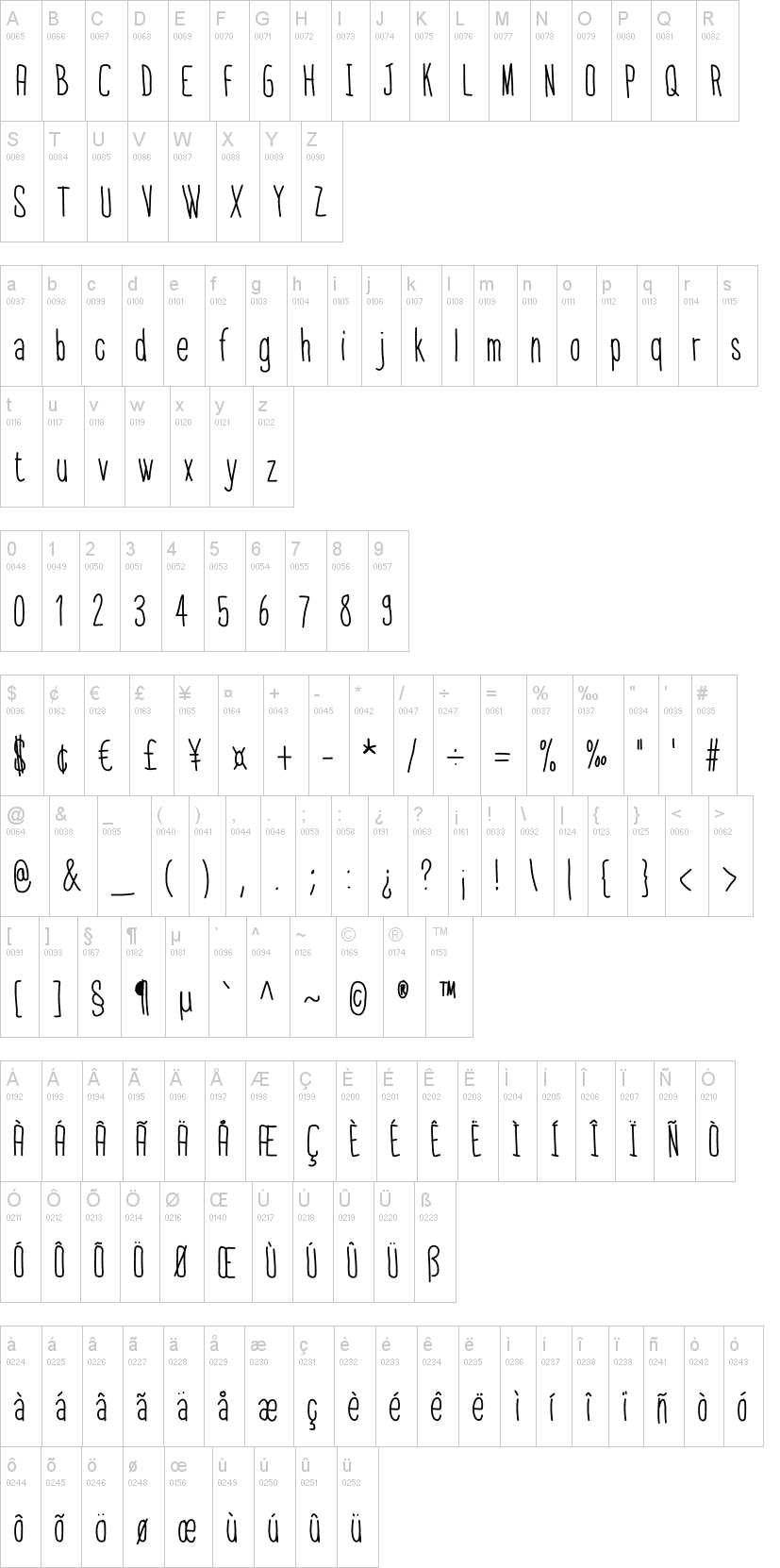
Note of the authorHere is a fun thin font with a manual and irregular appearance.
It contains most of the accents and special characters used in french and spanish.
Voici une police mince avec un aspect manuel et irrégulier.
Elle contient la plupart des accents et caractères spéciaux utilisés en français et en espagnol.